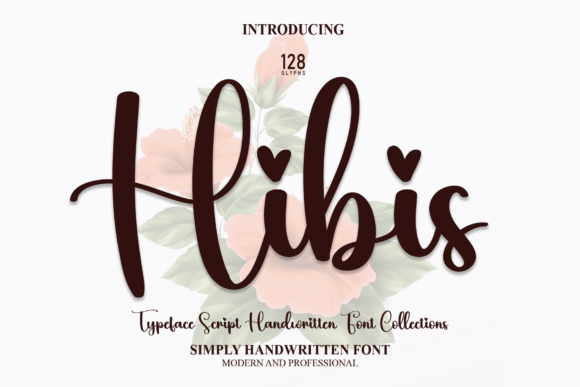
Journey into the enchanting world of Hibis Font, where traditional script intertwines with a touch of romantic playfulness. Picture a font where every letter is adorned with a delicate heart, adding an extraordinary charm to your words. It's a font that sparks warm feelings and captivates the imagination, making it the perfect choice for expressing emotions in a unique way.
Explore the endless creative possibilities with Hibis Font, a script font family that ignites emotions. Dive into a world of posters, greeting cards, and t-shirts adorned with your heartfelt messages. Let your brand speak volumes with the elegance of Hibis, capturing the attention of your audience with each stroke of the pen. Create stunning quote graphics that resonate with your soul, or unleash your imagination to design captivating projects that leave a lasting impression.
With Hibis Font, you'll embark on a creative journey like never before. Experience the magic as your words transform into enchanting pieces of art, capturing the essence of your thoughts and feelings. Dive into the realm of design and let your imagination soar with this font that truly stands out.